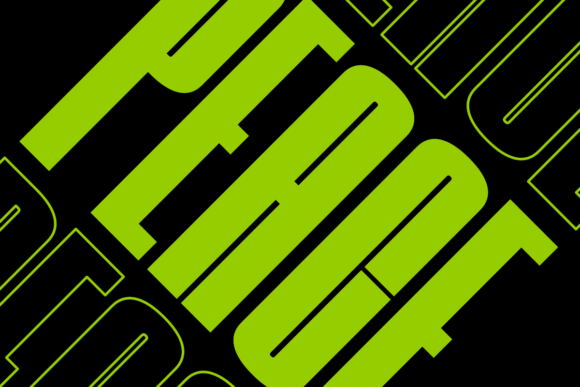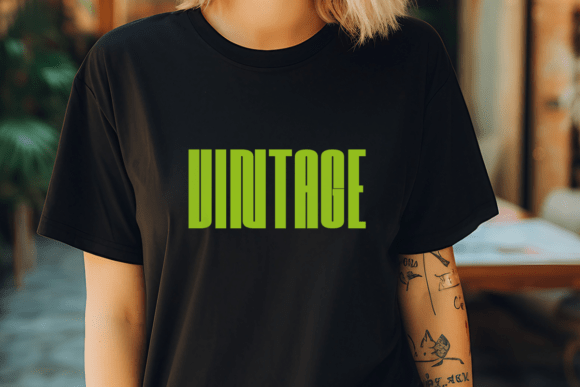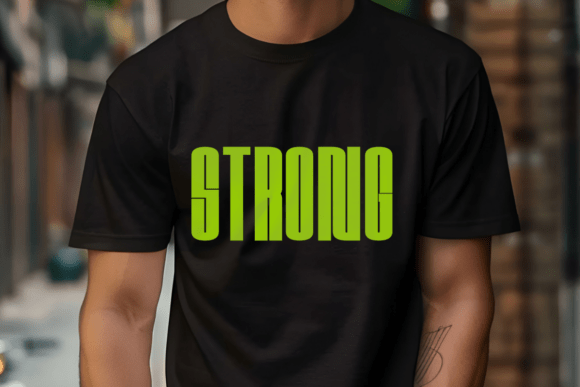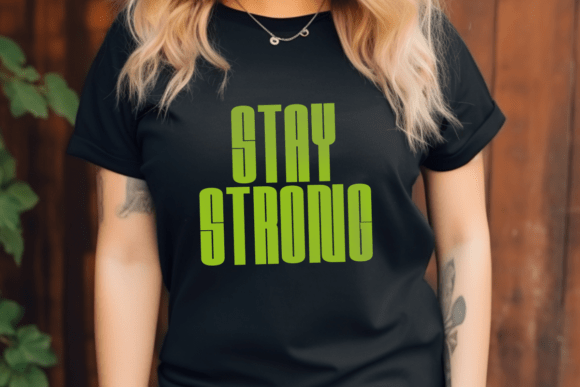
Introduction to Peace Font
As a designer, you know that the perfect font can make all the difference in a creative project. There’s nothing quite like the thrill of discovering a font that perfectly captures the essence of your vision, elevating your design from good to great. For me, that moment came when I stumbled upon the Peace Font, a sleek and stylish condensed sans serif font that has since become a staple in my design toolkit.
With its tall, narrow letterforms and elegant spacing, the Peace Font is a design resource that exudes high quality and sophistication. Whether you’re working on a print on demand project, crafting a logo, or designing a cinematic title sequence, this versatile font is sure to deliver. And the best part? It’s available for free download, making it an accessible and valuable addition to any designer’s library.
What sets the Peace Font apart is its ability to seamlessly transition from a transparent background to a bold, eye-catching design. Its PUA encoding ensures that all characters are easily accessible, allowing you to get creative with your project without any limitations. Whether you’re a seasoned pro or just starting out, the Peace Font is an essential tool for any designer looking to take their projects to the next level.
Key Features of Peace Font
- Designed with a unique, elegant style that adds a touch of sophistication to any design project.
- Perfect for use in logos, branding materials, and other visual identity elements where a sense of calm and serenity is desired.
Honest Review: Peace Font
I recently stumbled upon the Peace Font, a free download that’s definitely caught my attention. As a designer, I’m always on the lookout for high-quality design resources to elevate my creative projects. The Peace Font seems to fit the bill.
Here’s what I like about it: ✨ The font has a clean and minimalist design that works well for a variety of projects, from logos to typography-based designs. The transparent background makes it easy to customize and integrate into any design. The font is also highly legible, making it perfect for body text or headings.
- What I like:
- Clean and minimalist design
- Highly legible
- Limitations:
- Not as versatile as some other fonts (limited character set)
- May not be suitable for bold, eye-catching designs
Overall, I’m impressed with the Peace Font. It’s a solid addition to any designer’s toolkit, and it’s free to download, which is always a bonus. If you’re looking for a clean and legible font for your next creative project, the Peace Font is definitely worth checking out.
Peace Font is a high-quality design resource available for free download. This elegant font features a transparent background, making it ideal for creative projects that require a touch of sophistication.
Peace Font is commonly used in wedding invitations, branding materials, and social media graphics. Its elegant design makes it perfect for any creative project that requires a touch of sophistication and class.